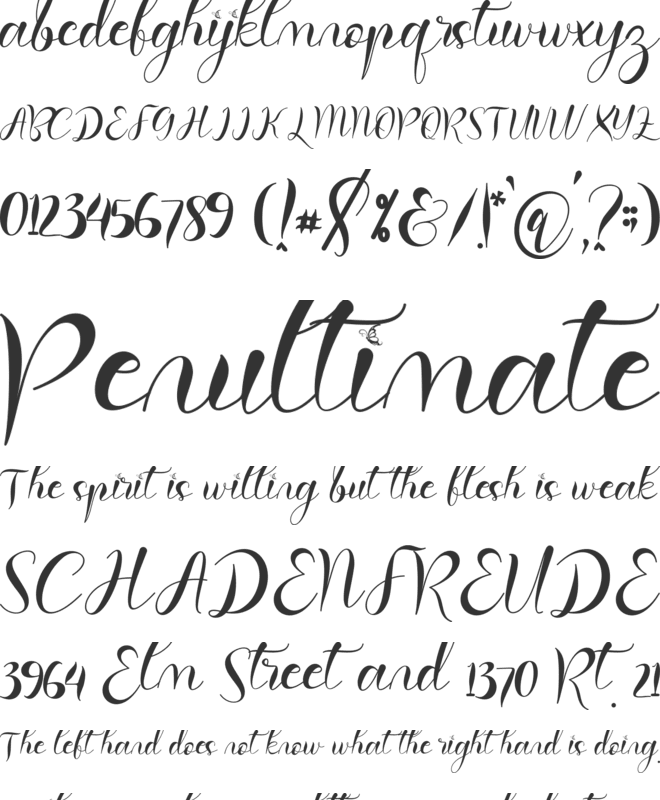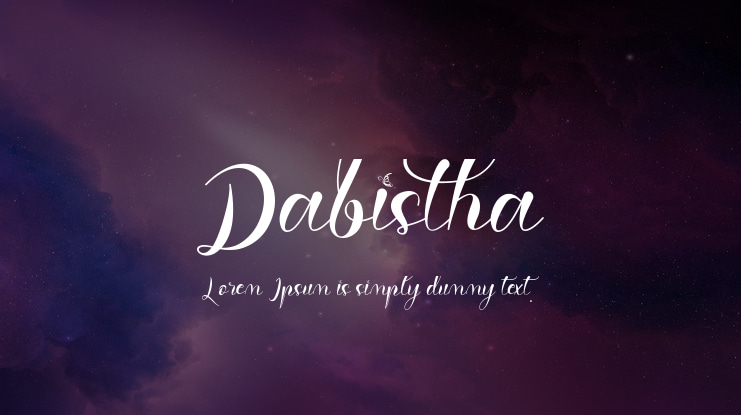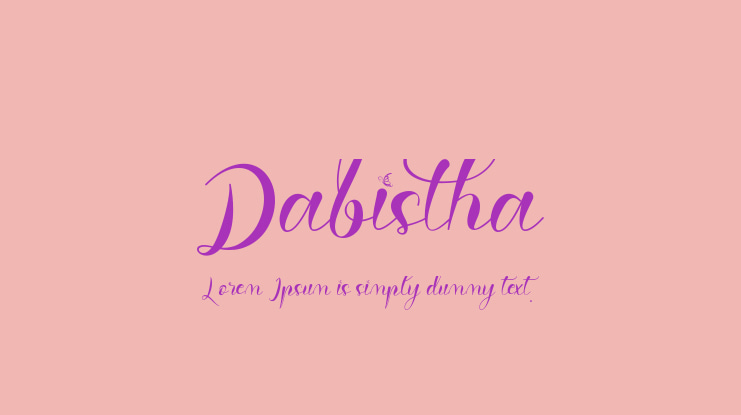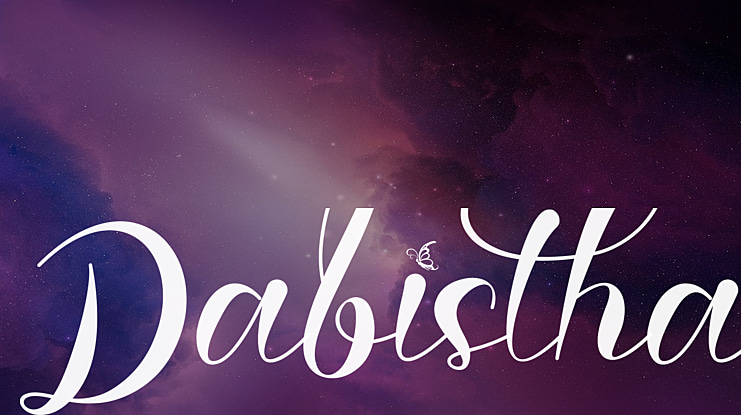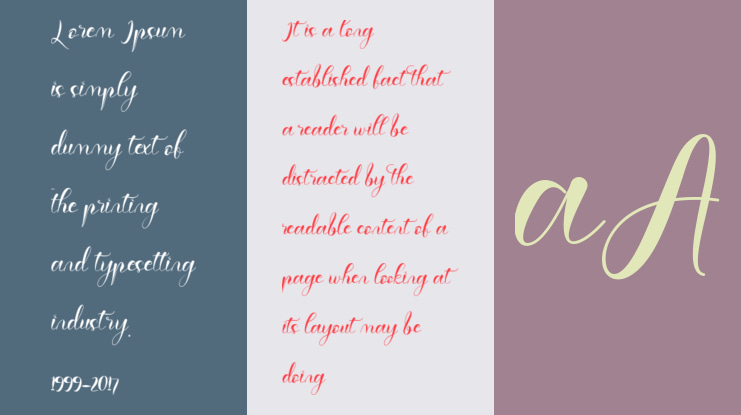
Dabistha Font
This font is named Dabistha. Dabistha is a very beautiful and high quality lovingly crafted font. This font can make your work more beautiful and elegant. This font is perfect for marketing your products, promote your bussines, creating quotes, weddings, invitation cards, logos, branding and status updates on social media, christmas. Can also be used to enhance your beautiful moments, and others.